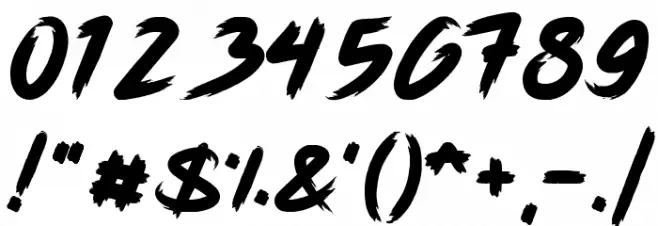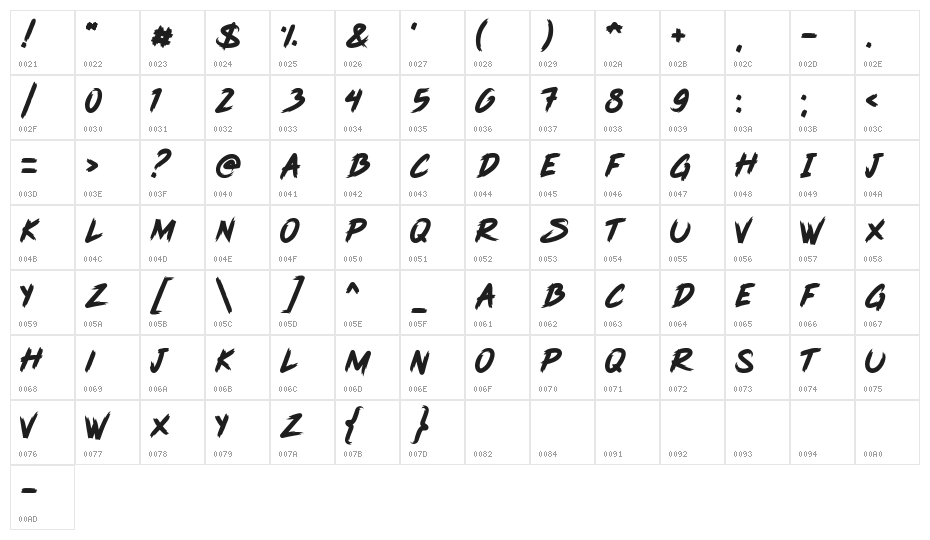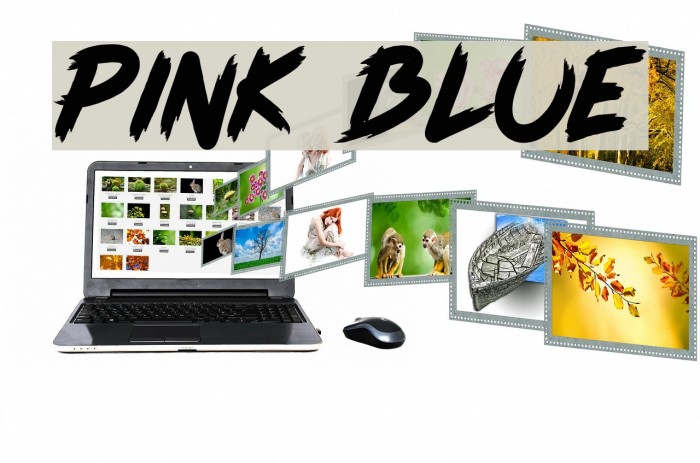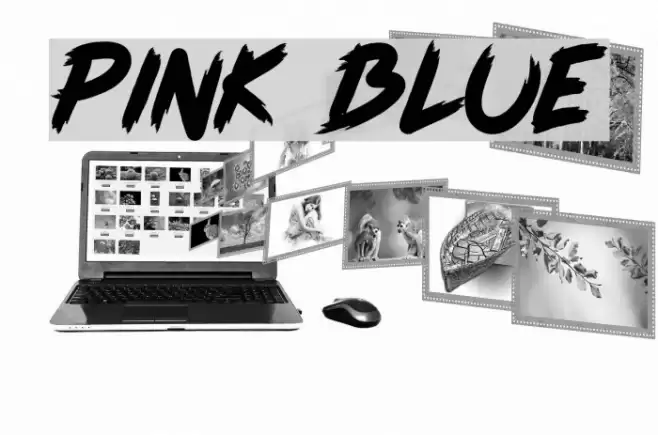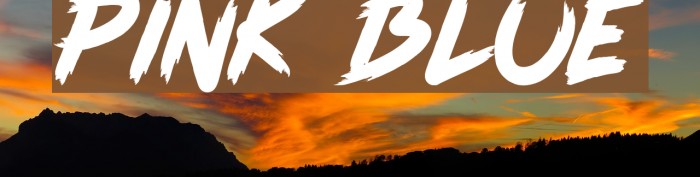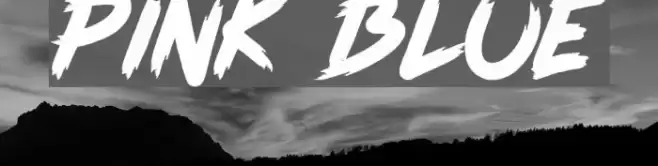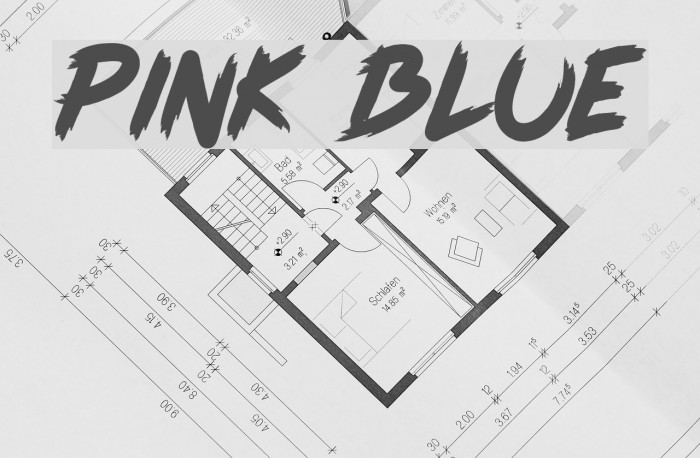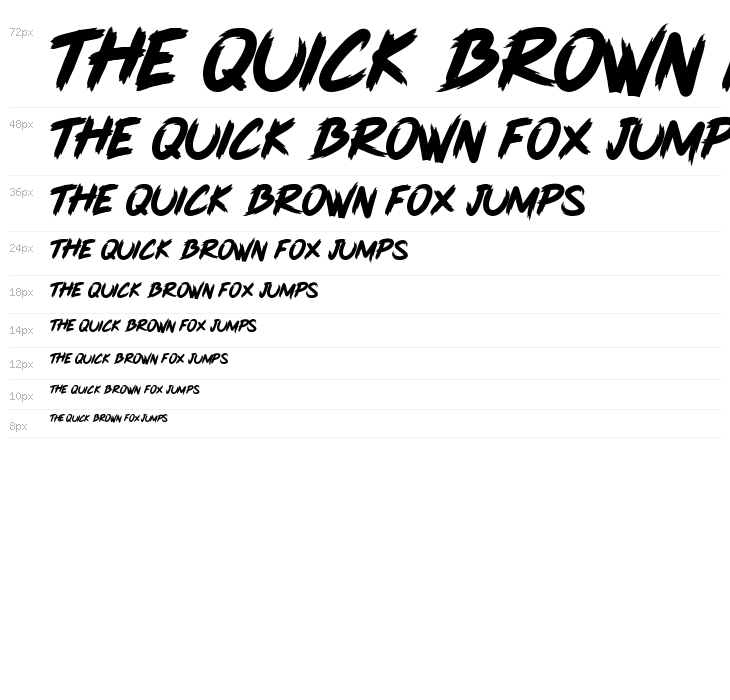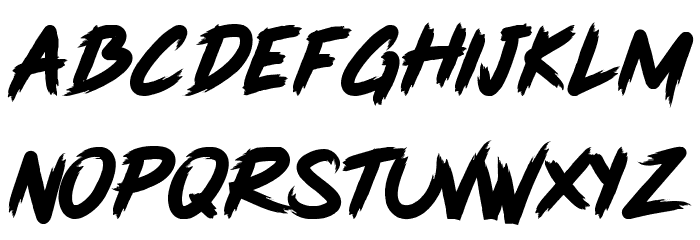
Pink Blue Font
Pink Blue Description
This bold and dynamic font features a brush-like, hand-painted style that exudes energy and movement. The strokes are thick and irregular, giving it a raw, expressive feel. Each character appears as if it has been swiftly painted with a brush, with varying thickness in the strokes that add to its dramatic flair. The uppercase and lowercase letters maintain a consistent style, while the numbers and special characters follow suit with the same energetic brushstroke design. This font is ideal for projects that require a bold statement or a creative, artistic touch.
| Proposed Projects | Ideal for posters, album covers, branding, and any project needing a bold, artistic flair. |